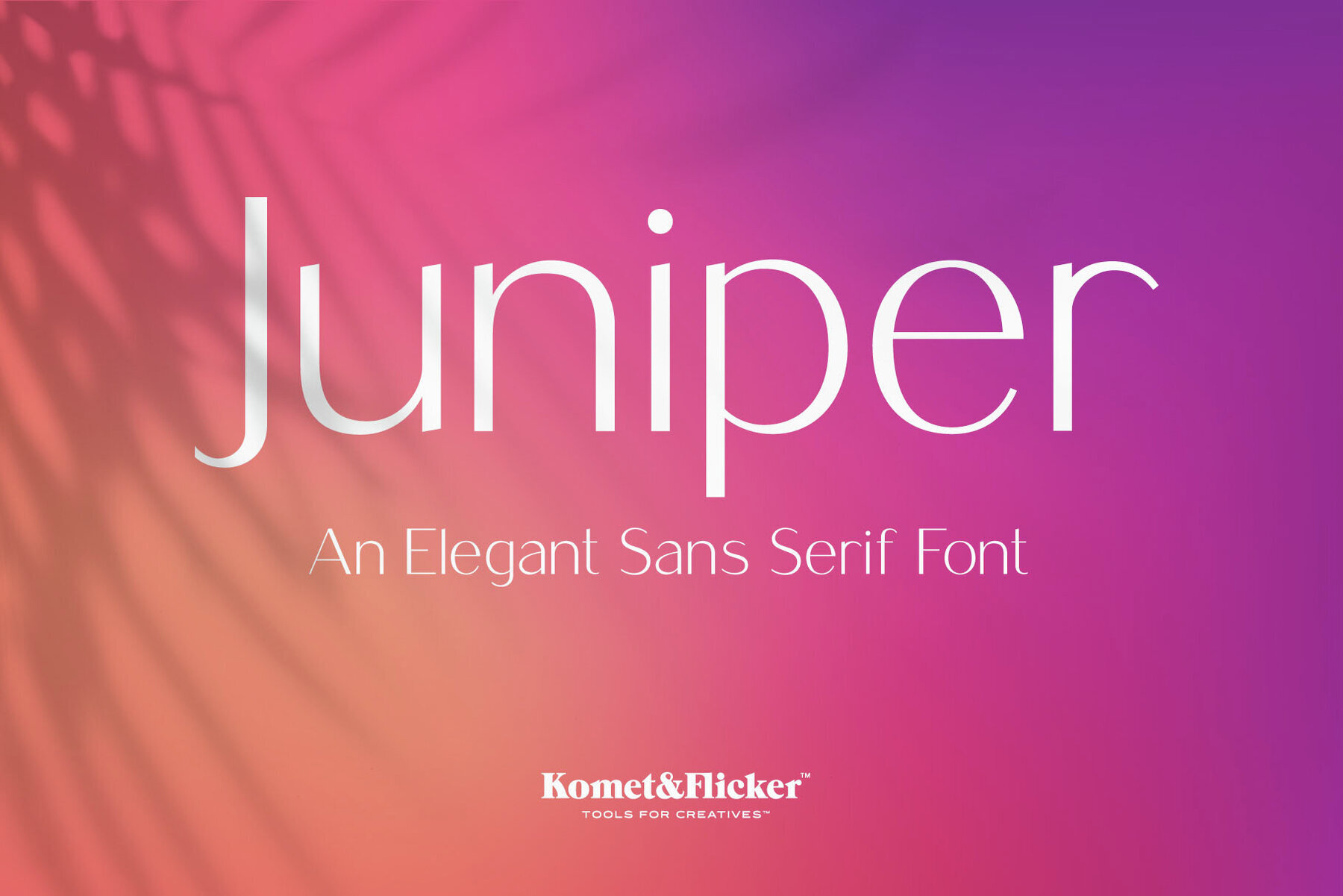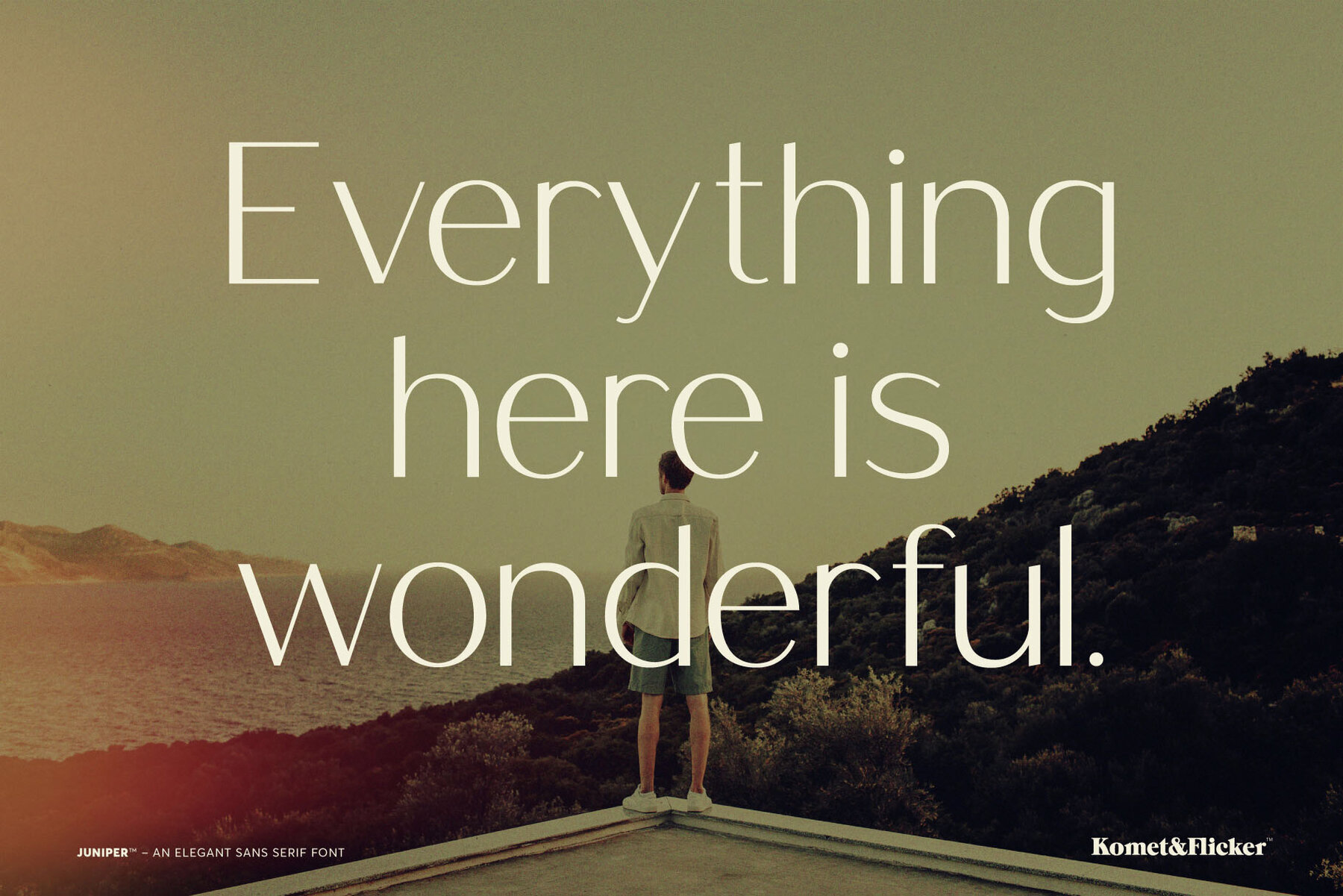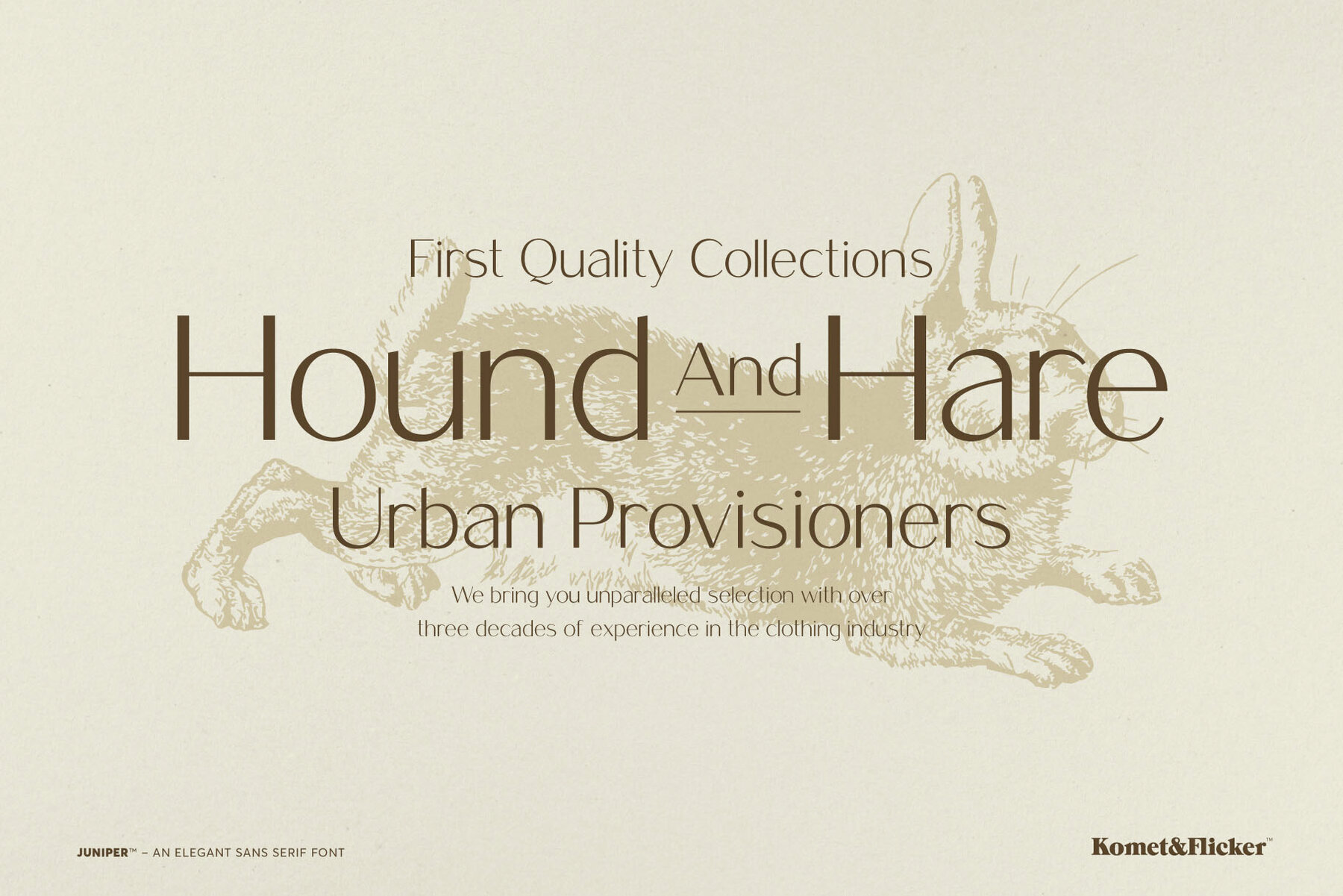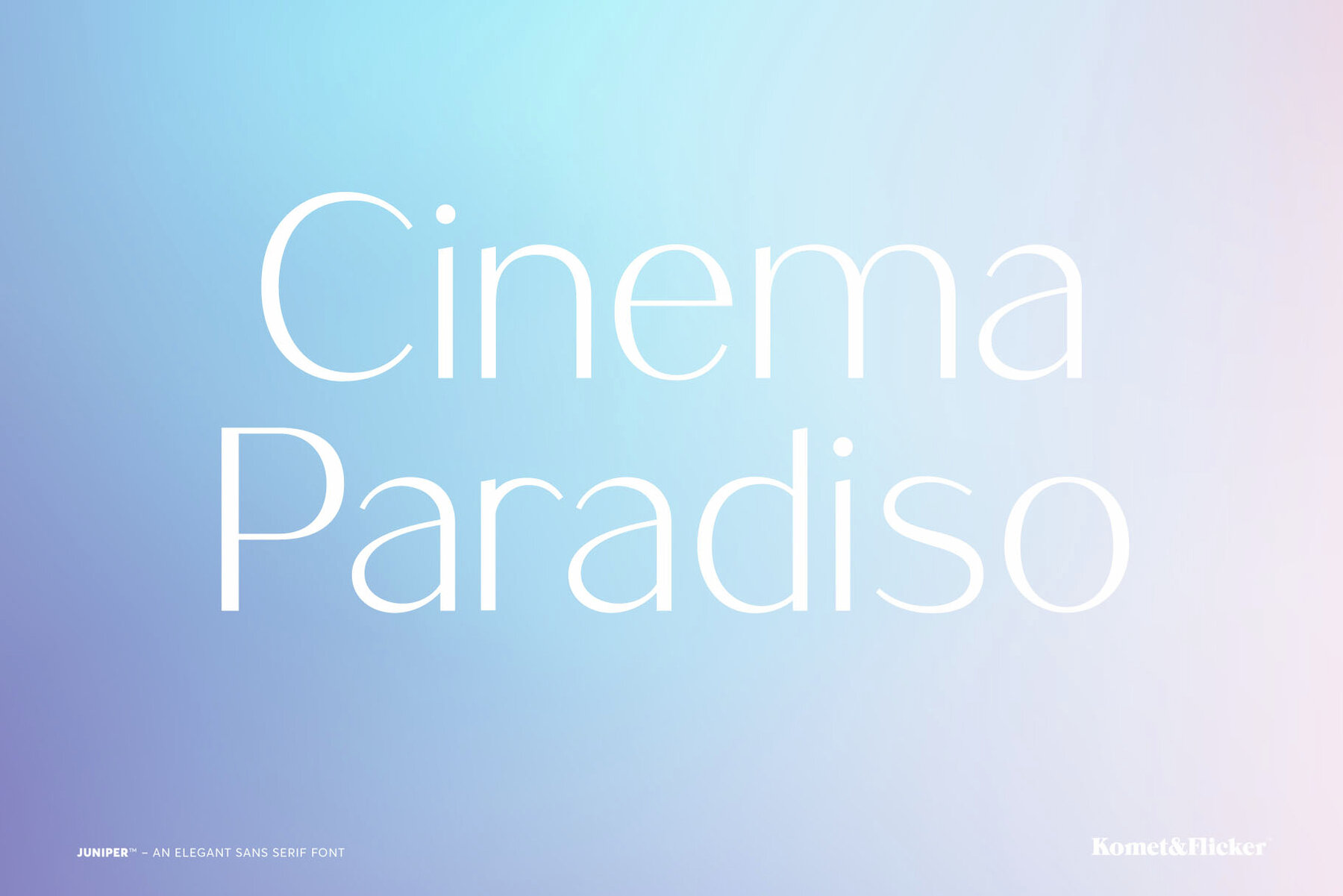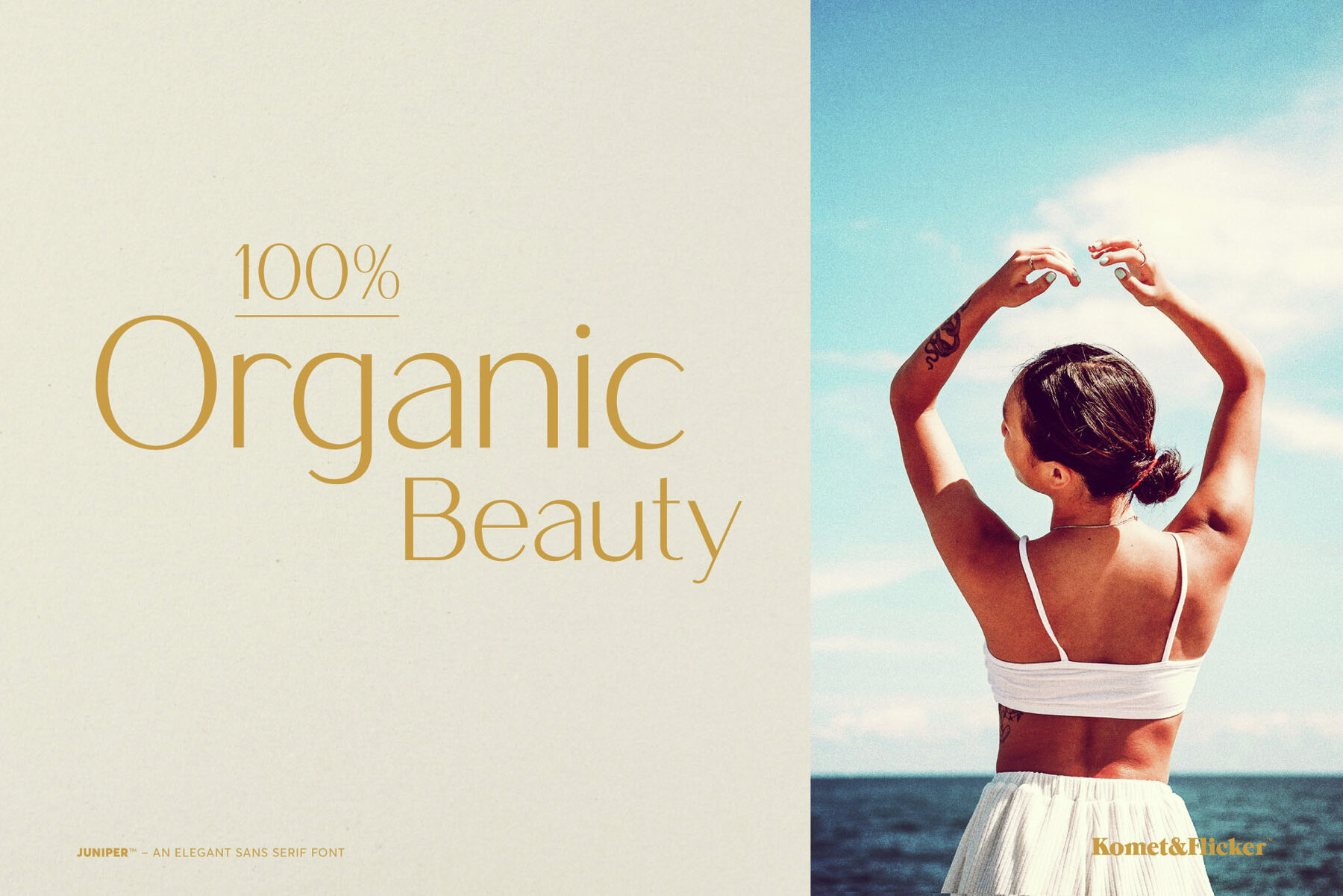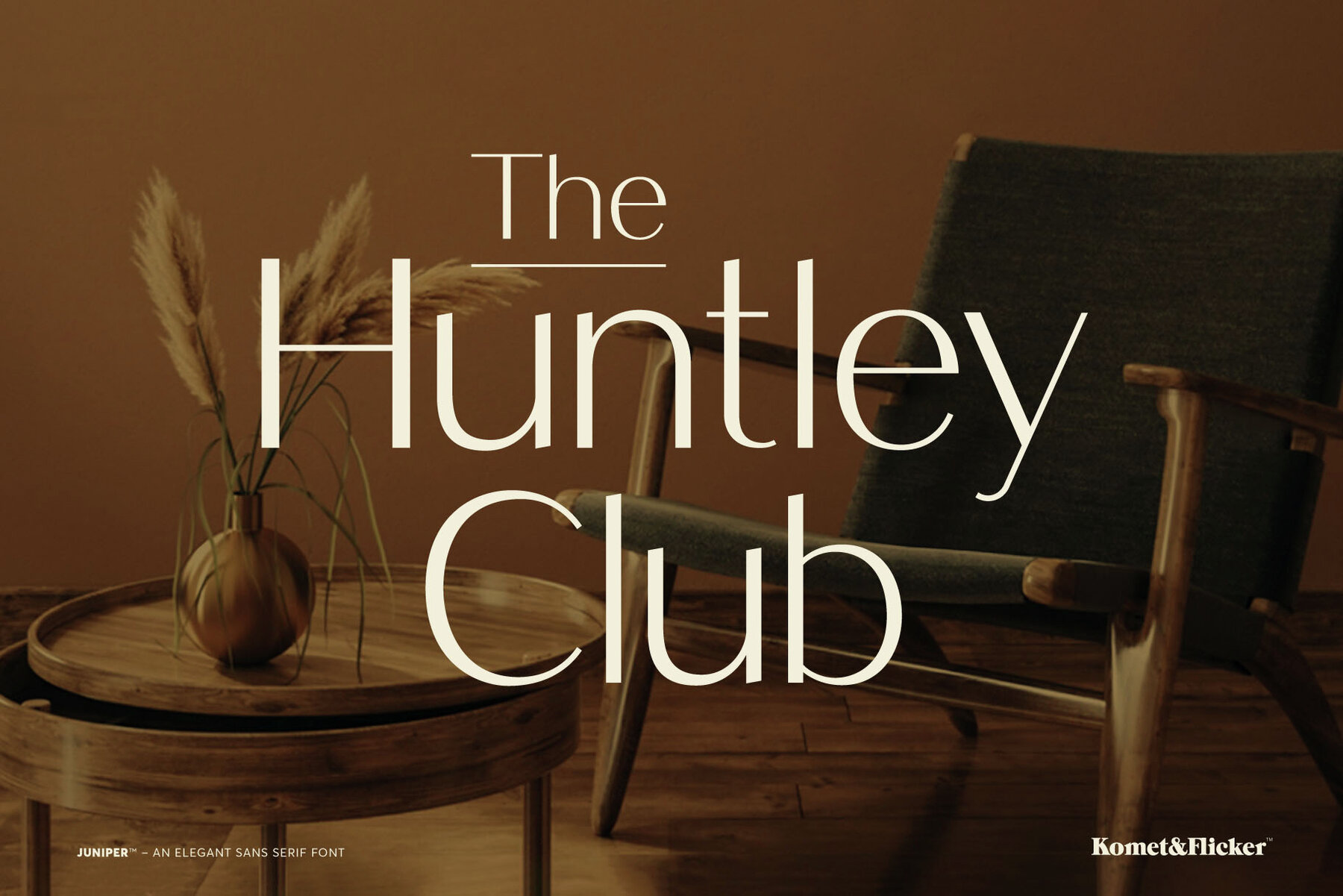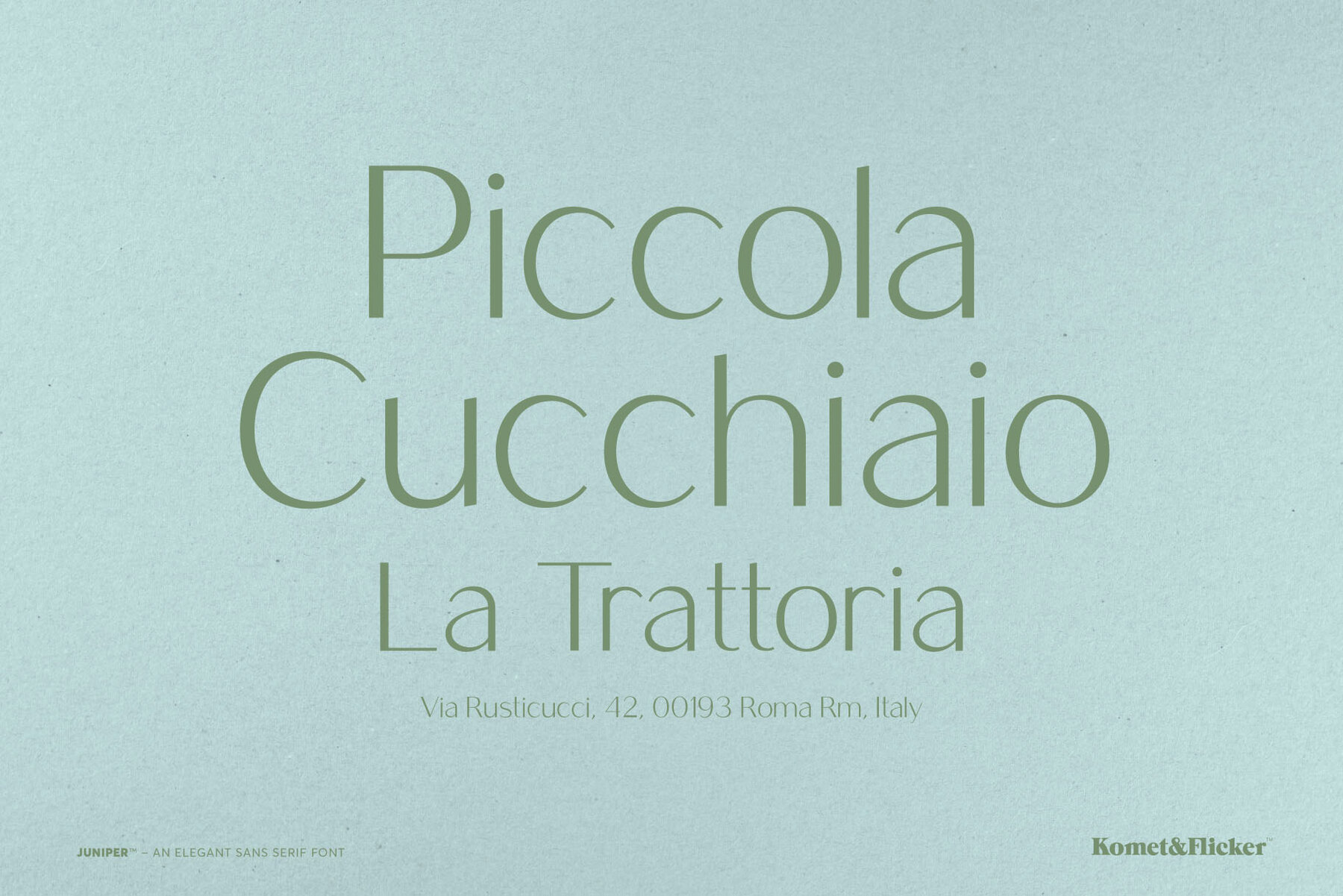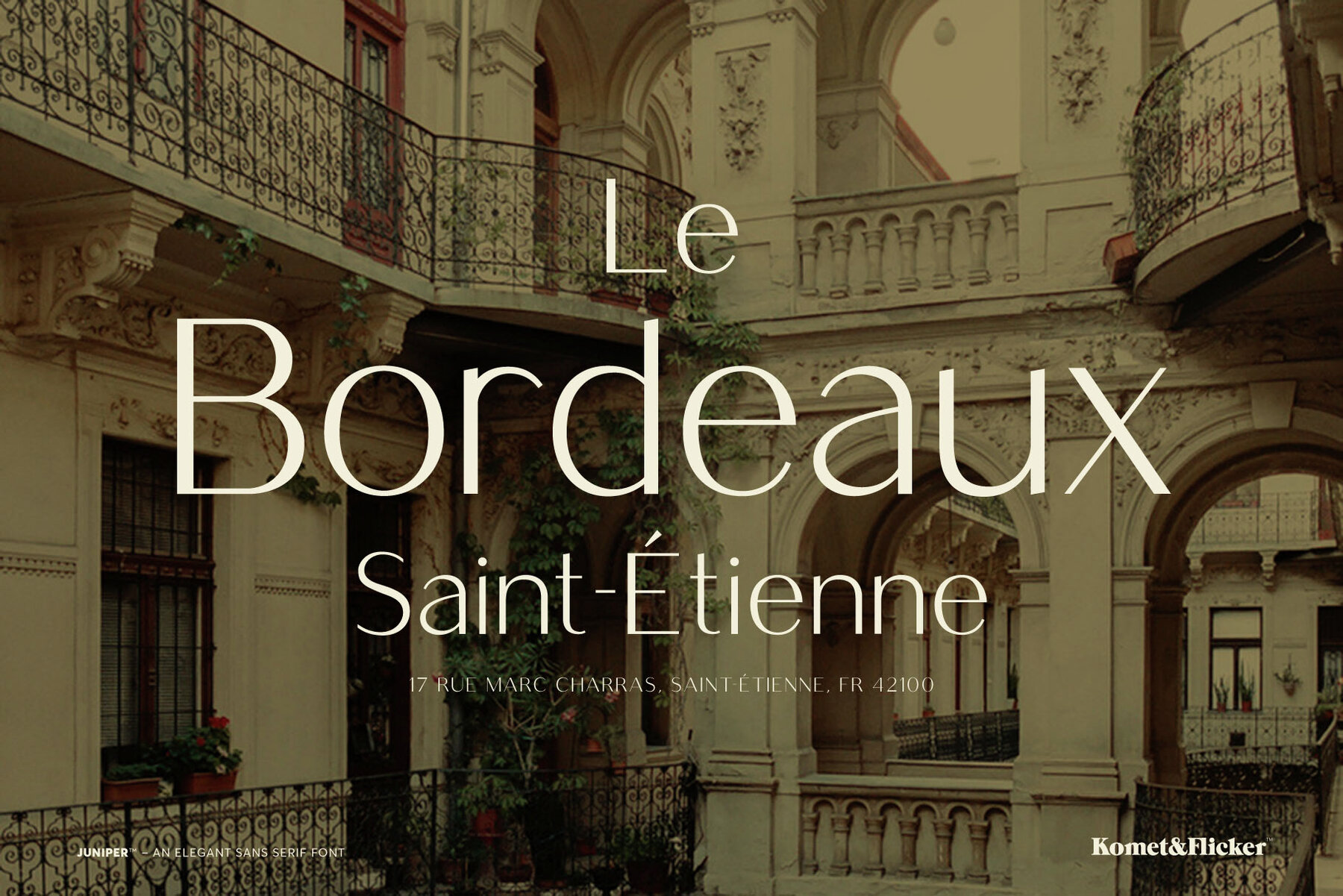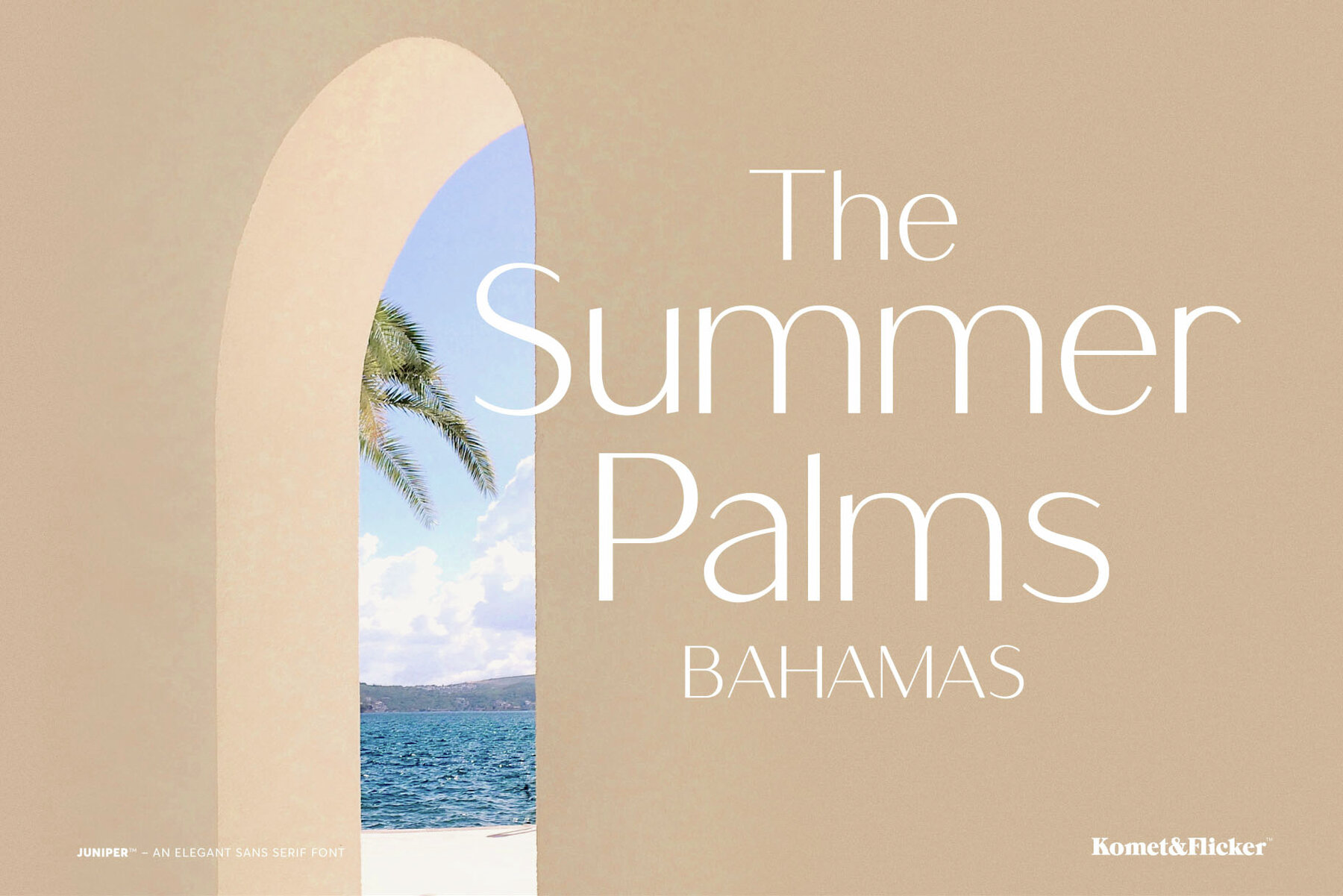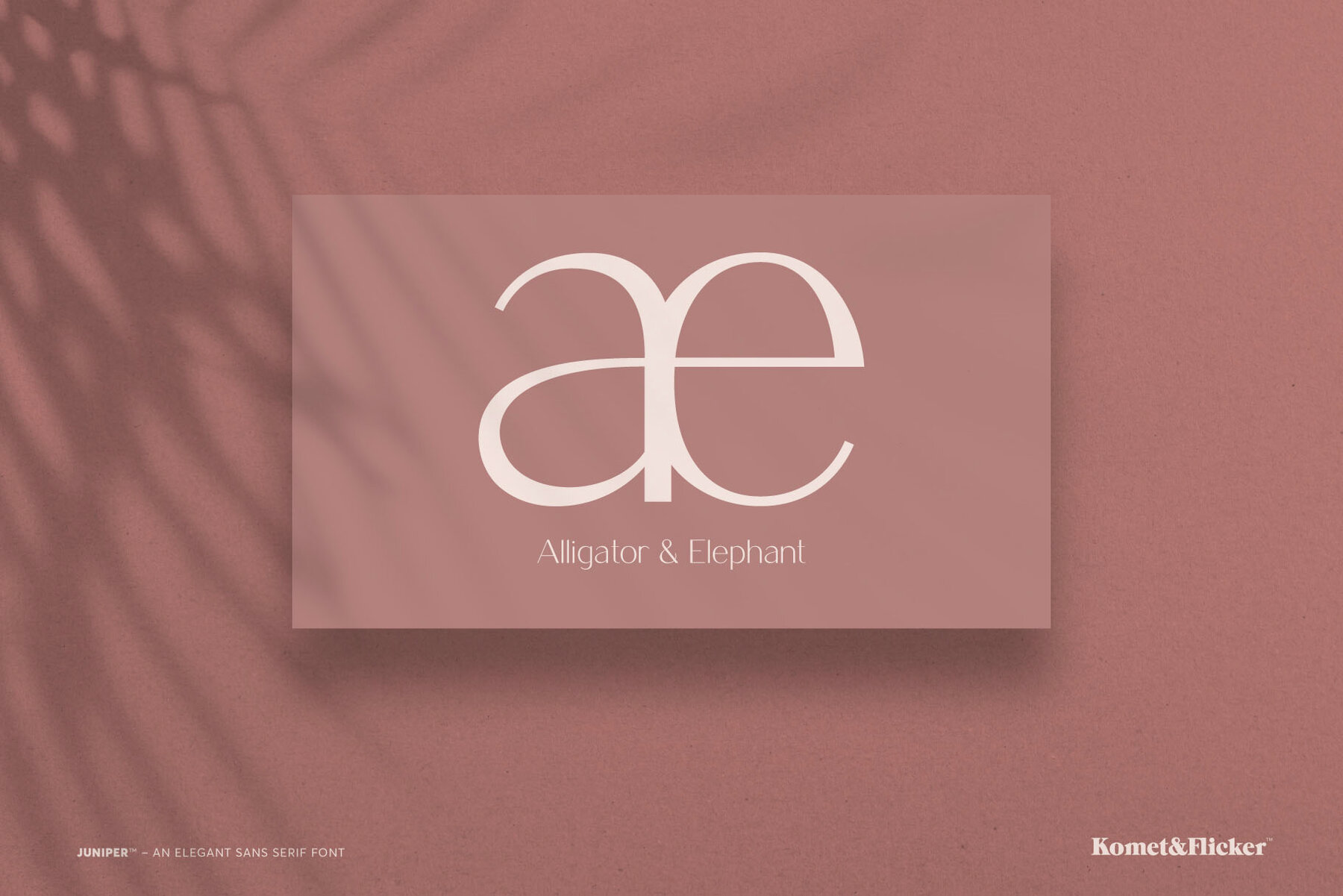
Juniper Font
Juniper Light
Juniper is a sleek and slim font that seamlessly blends fashionability with chic elegance. Ideal for designing logos, crafting invitations, or enhancing brand communication with sophistication, Juniper’s clean lines and graceful curves ensure a timeless quality. This contemporary yet enduring style guarantees that your message remains impactful over time.
With a versatile character set, Juniper is perfect for global communication, accommodating multiple languages and special characters. This font package includes full A-Z uppercase and small caps basic Latin characters, select European-specific characters, as well as numbers, punctuation, and select symbols. Effortlessly stylish, Juniper offers both adaptability and flair for your design needs.